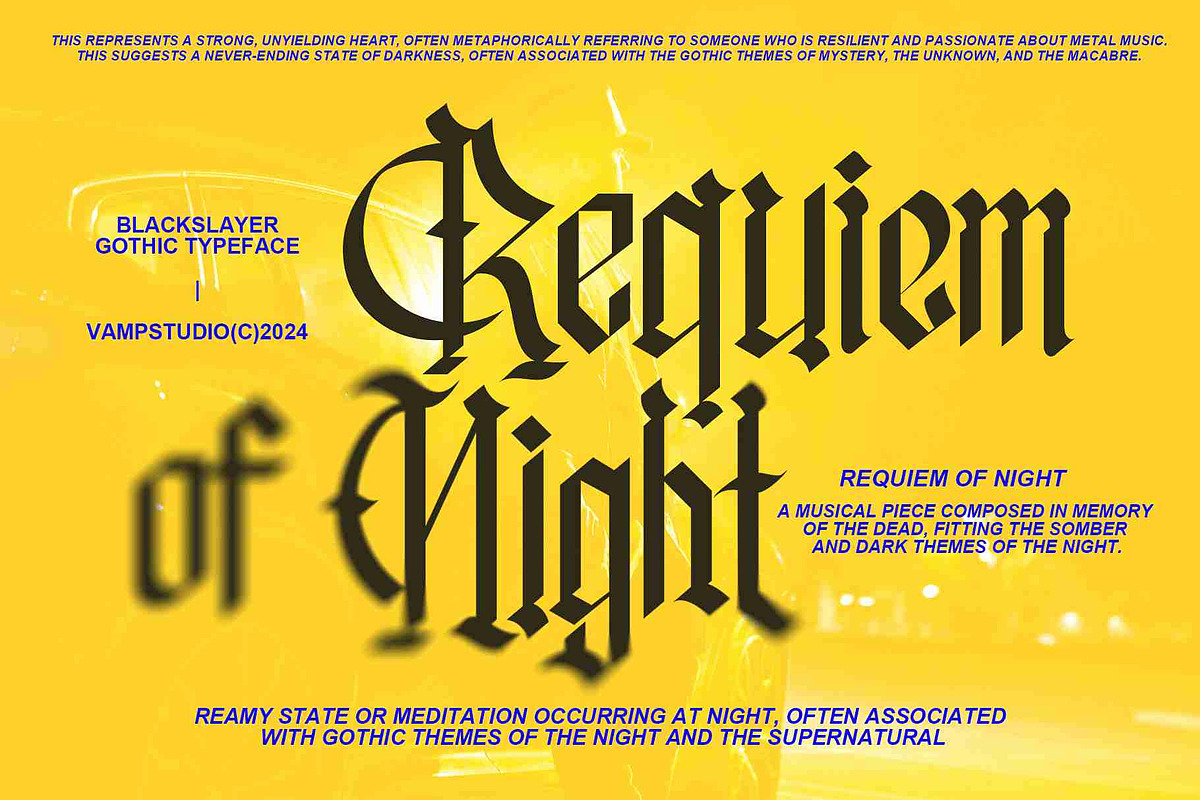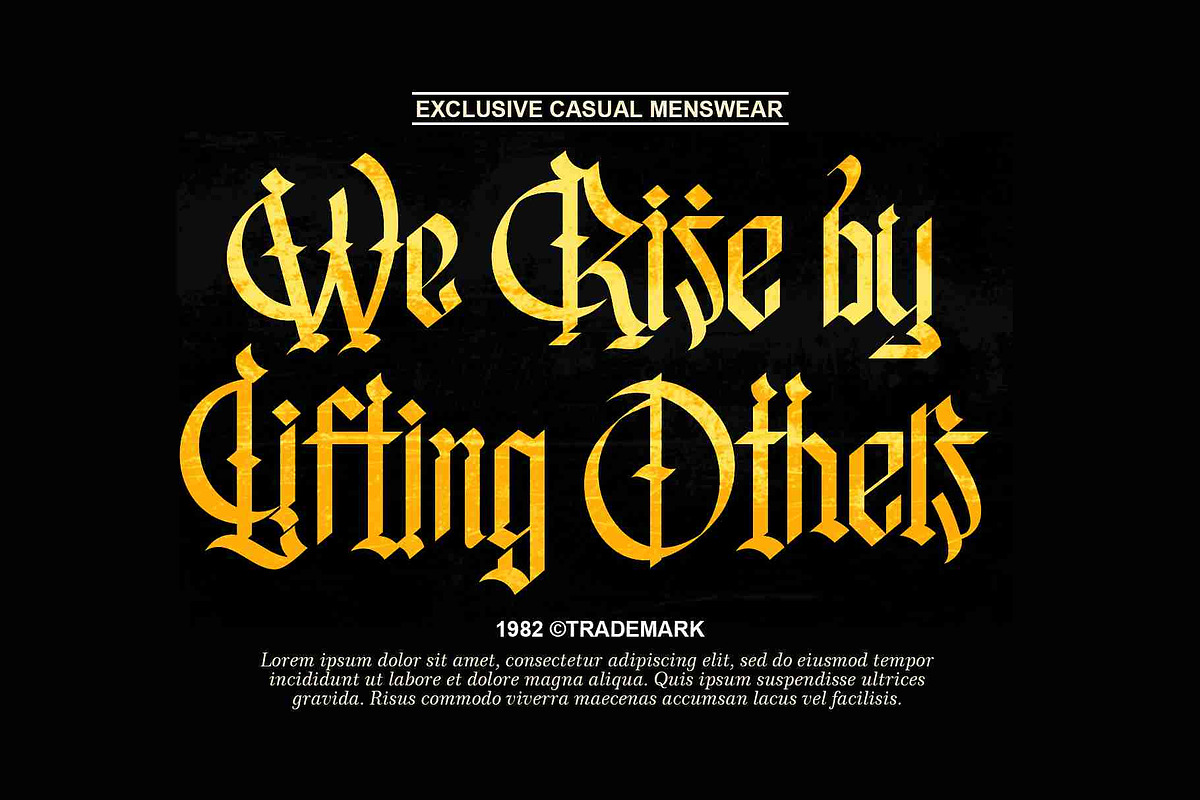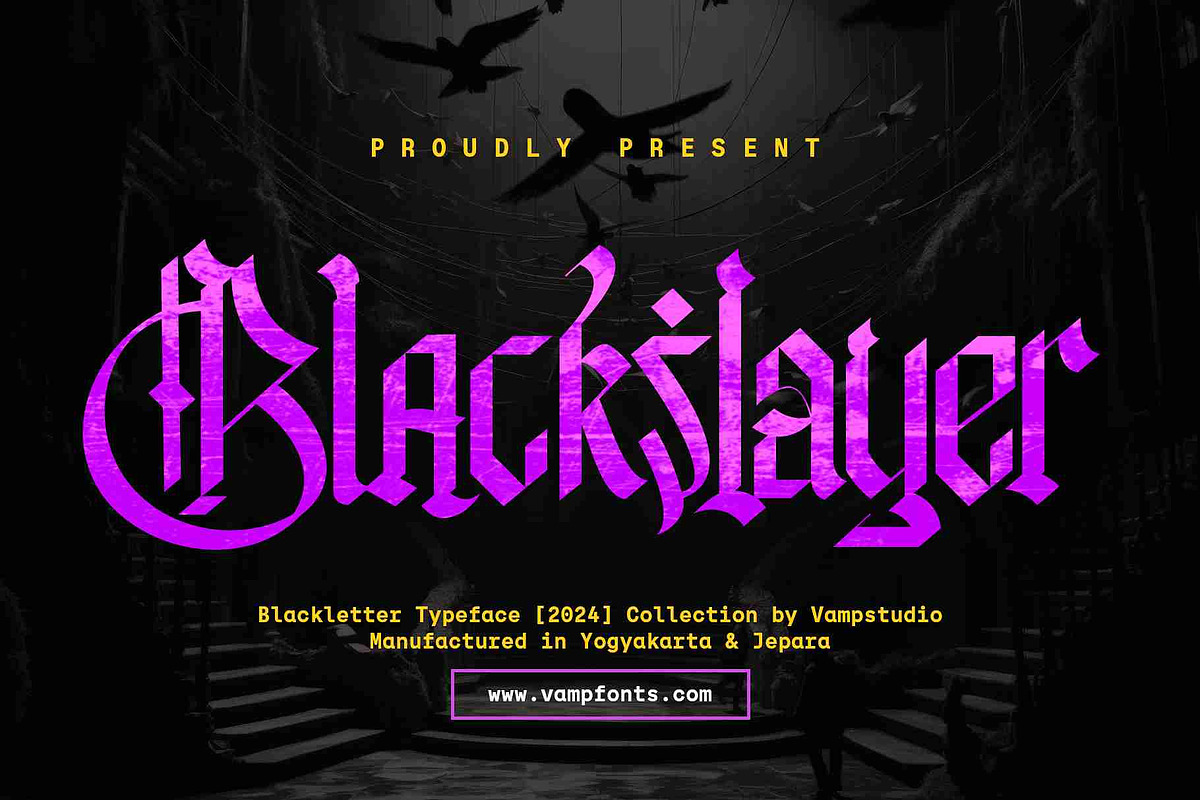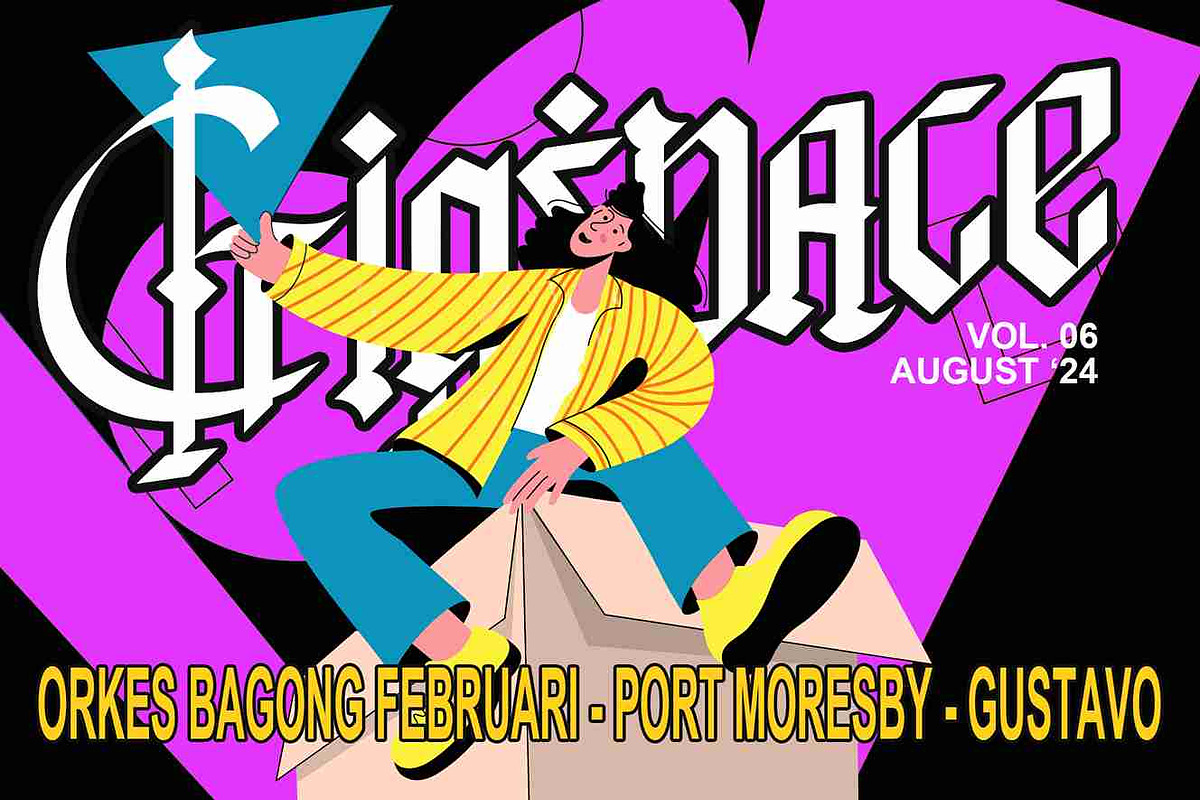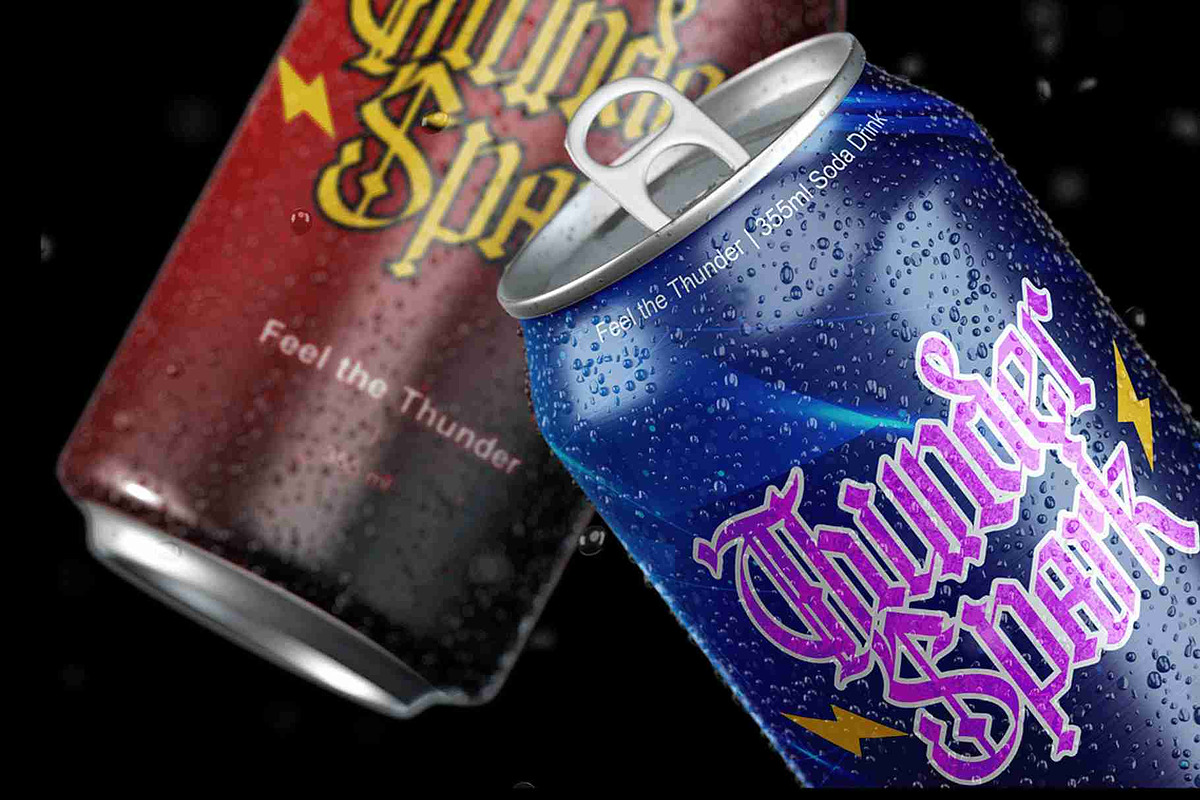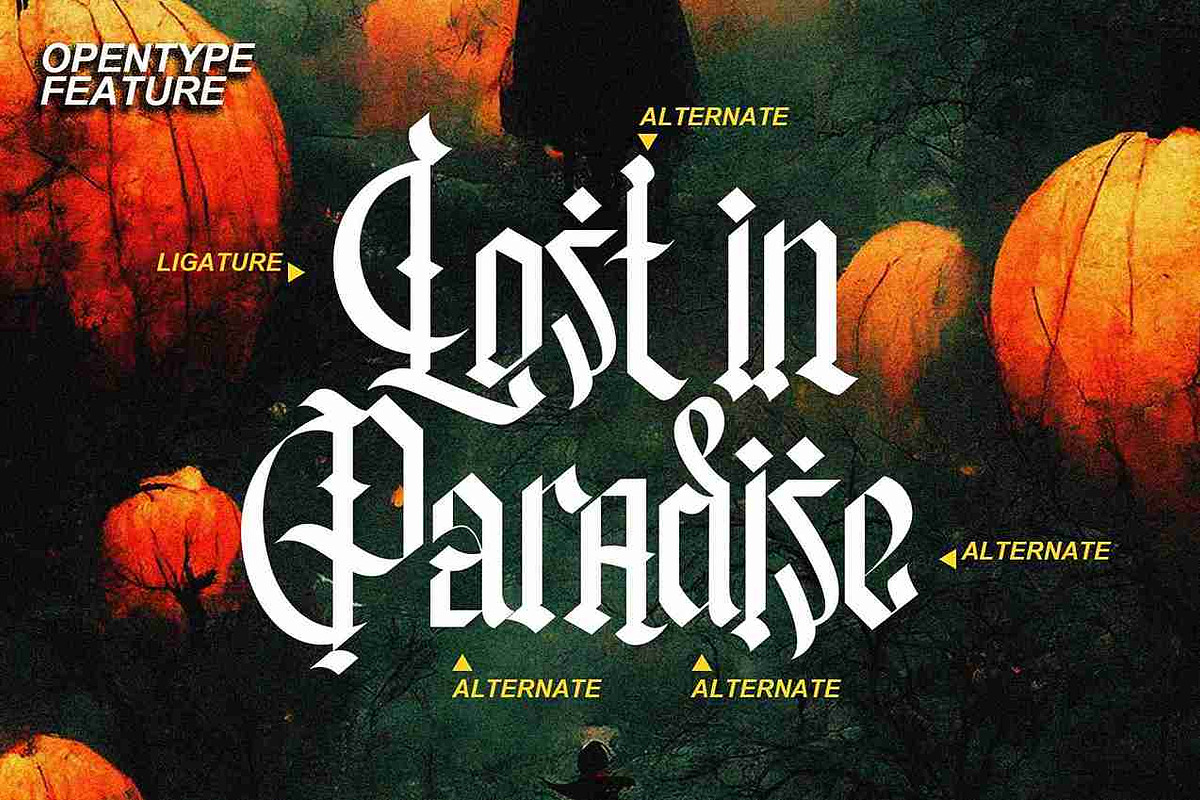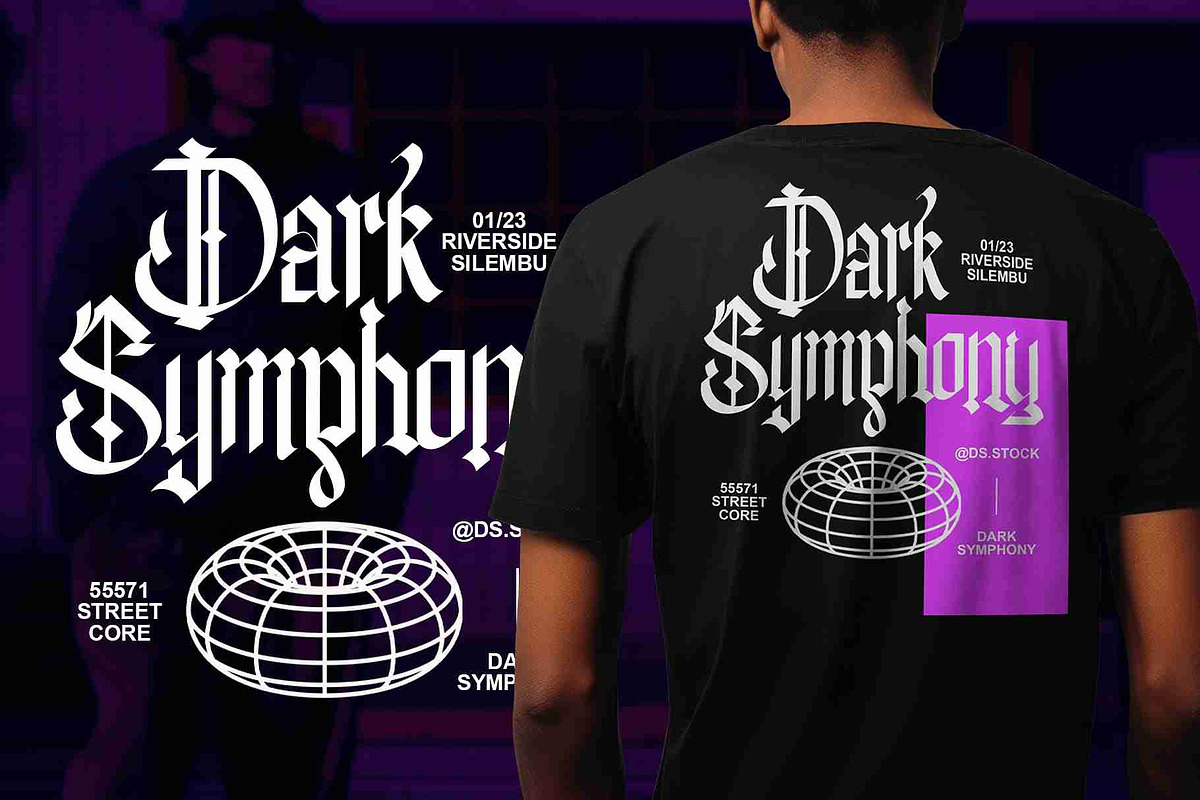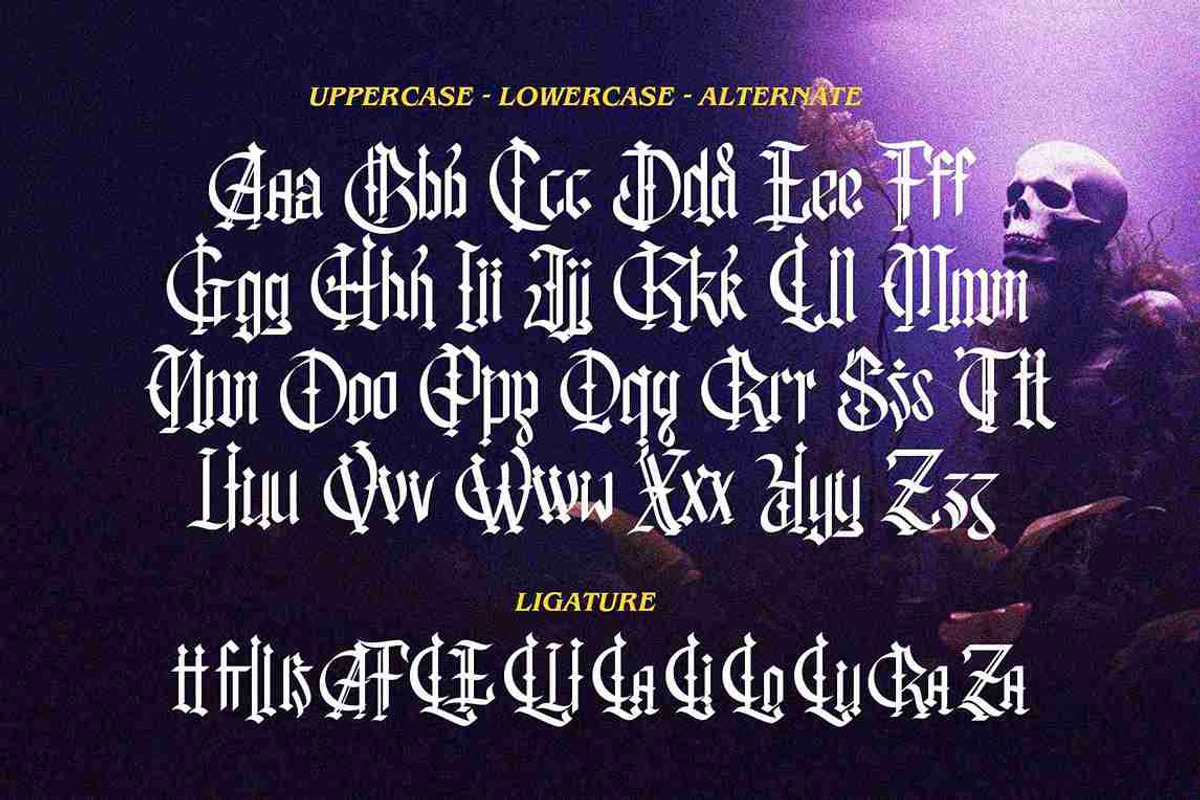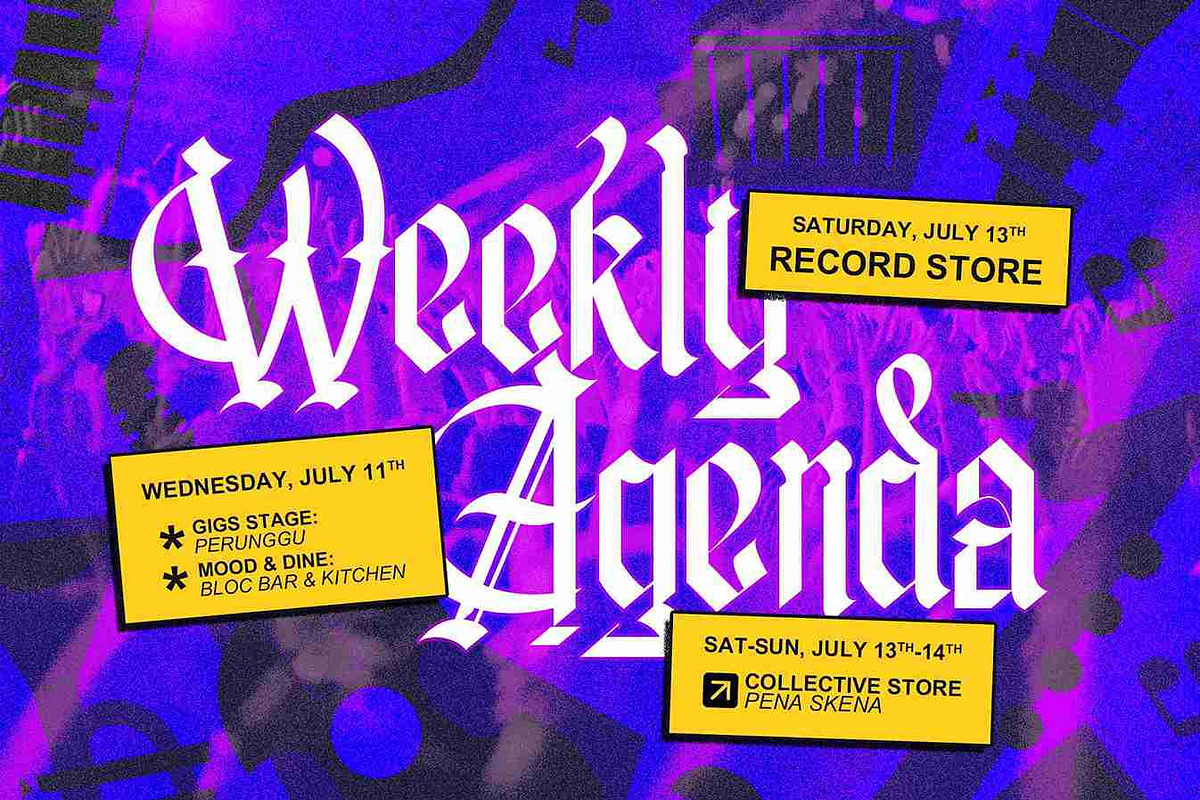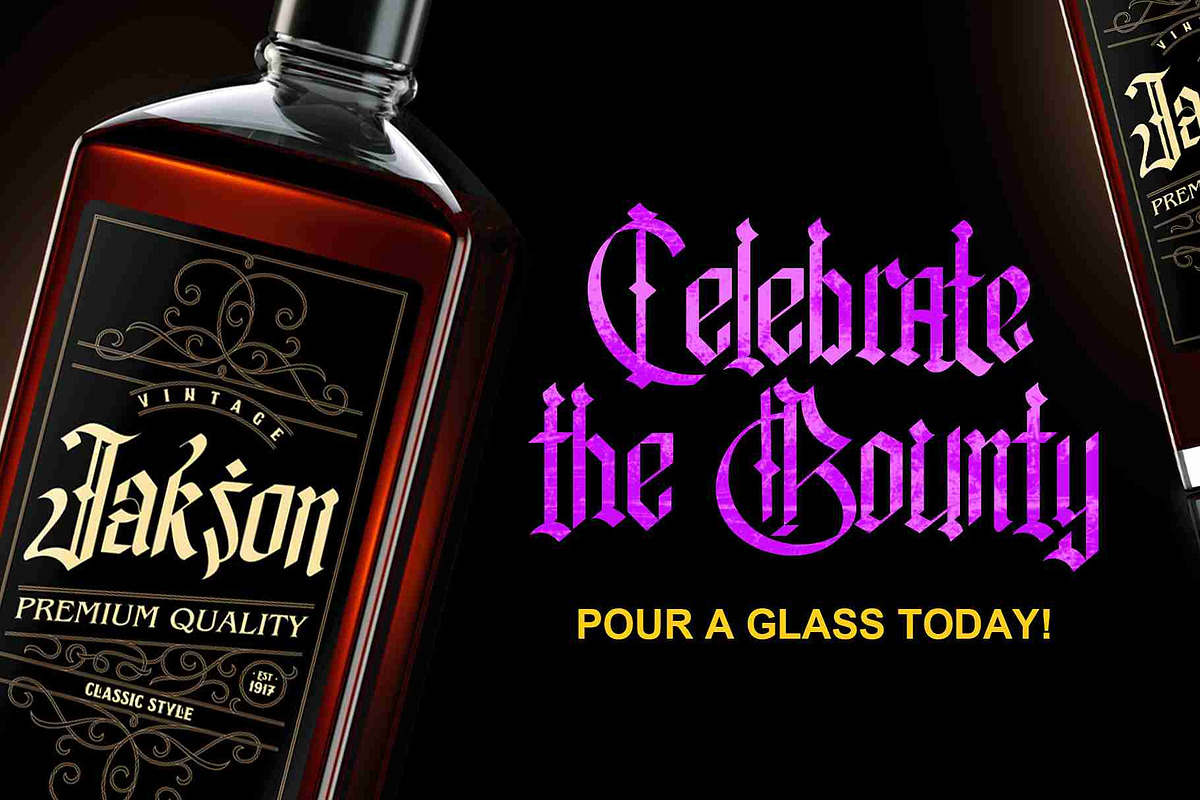
Blackslayer Modern Blackletter
Unleash the bold power of Blackslayer Font, a modern blackletter font that redefines traditional Gothic style with a sleek, contemporary edge. This striking typeface combines the sharp, aggressive lines of blackletter with a clean, modern aesthetic, perfect for projects that need a fierce yet refined look.
Blackslayer Font is ideal for creating standout visuals in branding, album covers, posters, and editorial work. Its commanding presence and strong, angular characters make it perfect for titles, logos, and any design that demands attention.
- Modern Blackletter Fusion: A bold and edgy interpretation of classic Gothic typography, updated for contemporary design needs.
- High Impact: Perfect for creating dynamic, eye-catching headlines, logos, and branding materials.
- Complete Character Set: Includes uppercase, lowercase, numerals, punctuation, and special characters to fit any creative need.
- Versatile Applications: Ideal for music branding, fashion campaigns, product packaging, and more.
Make a statement with the bold and rebellious style of Blackslayer Blackletter, and bring a powerful, modern twist to your designs